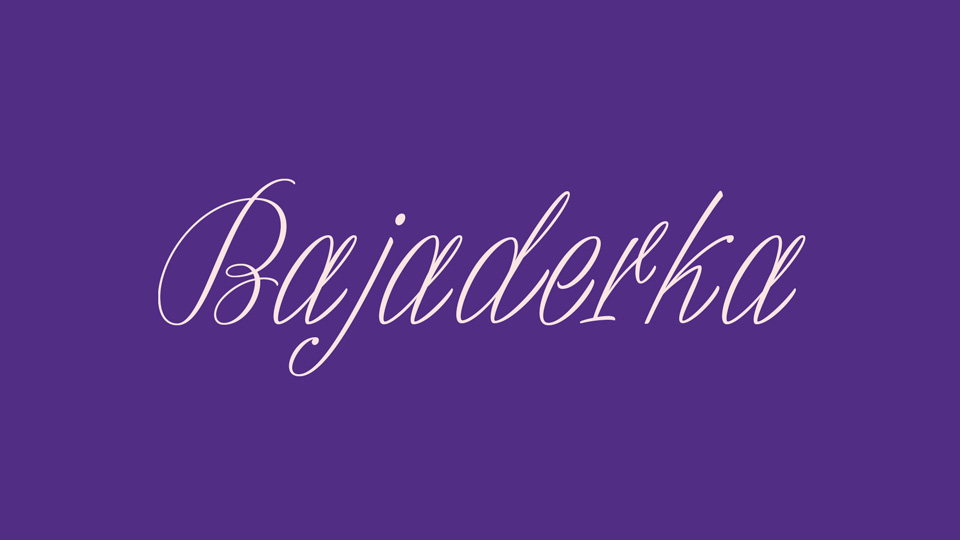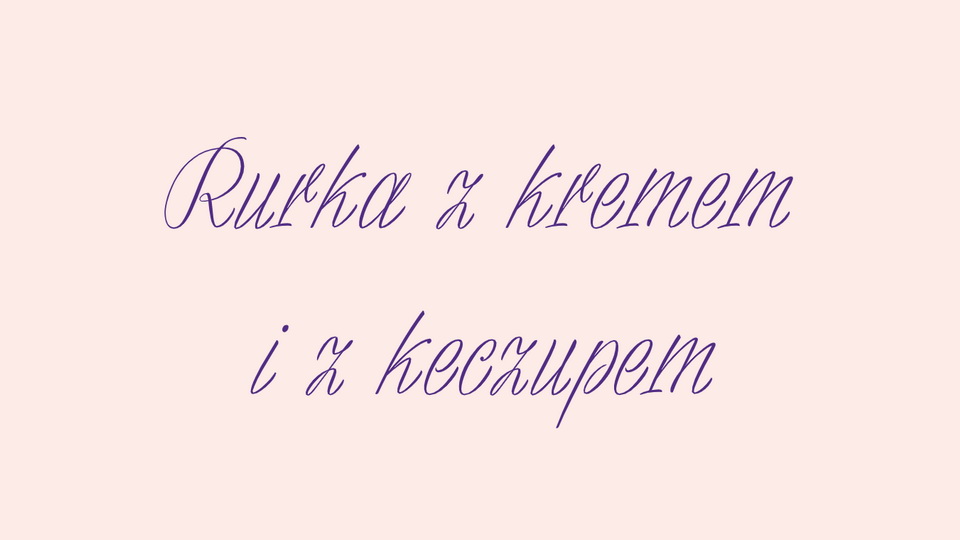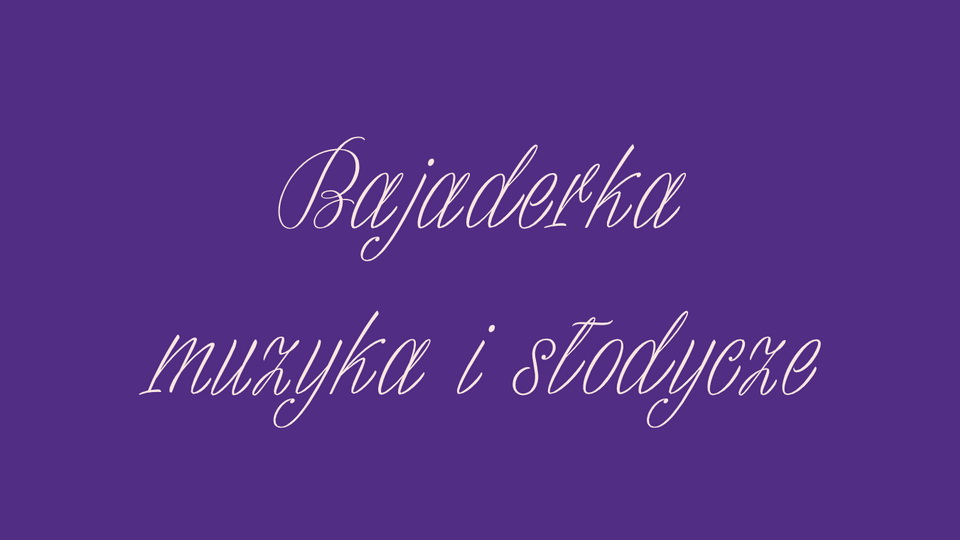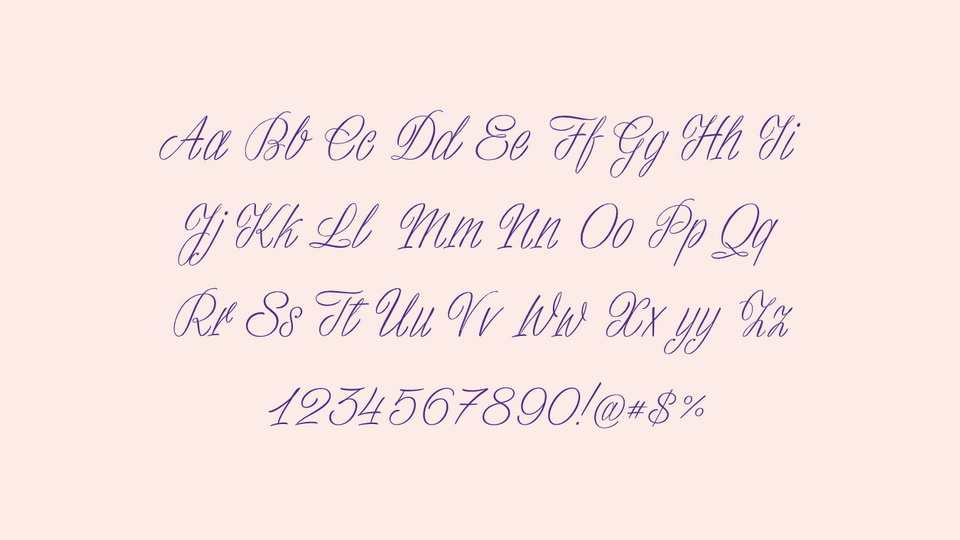
Bajaderka is a handwritten font inspired by lettering of the small signage tablets found in Warsaw shops. The letters feature details typical for traditional calligraphy, with visible brush strokes, referring to the charming style of Warsaw’s sign painters.